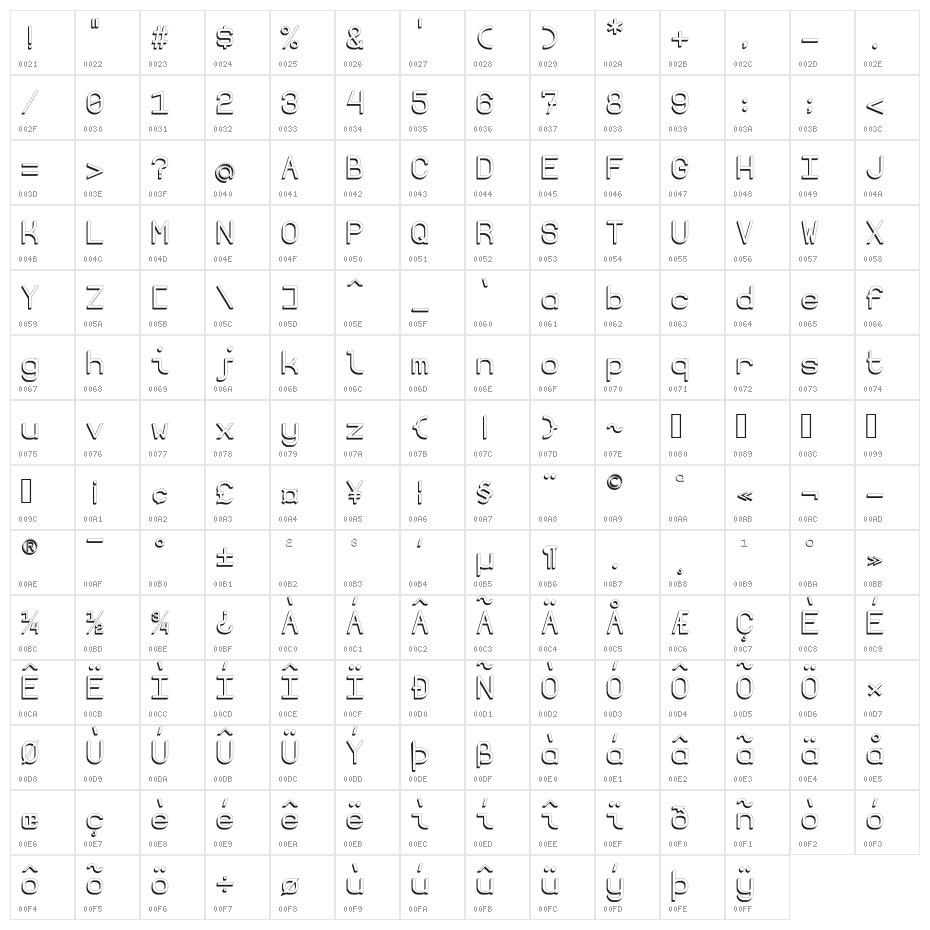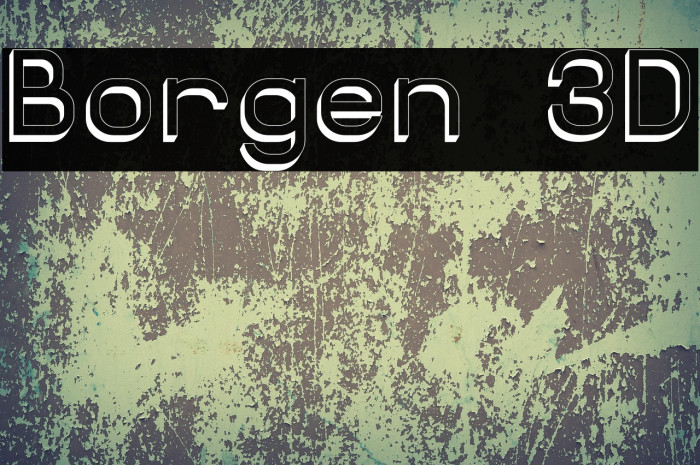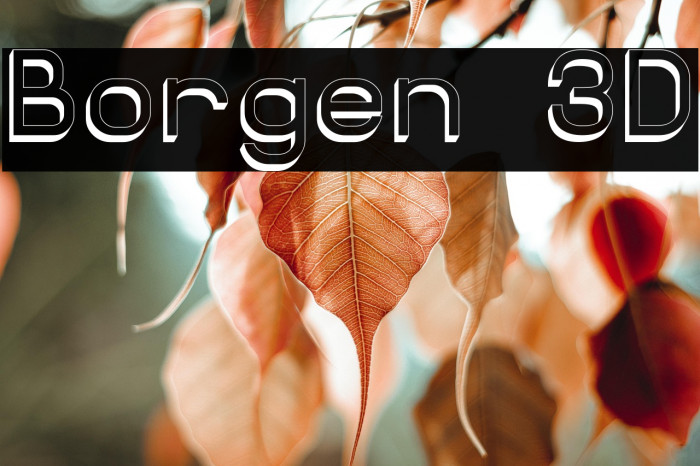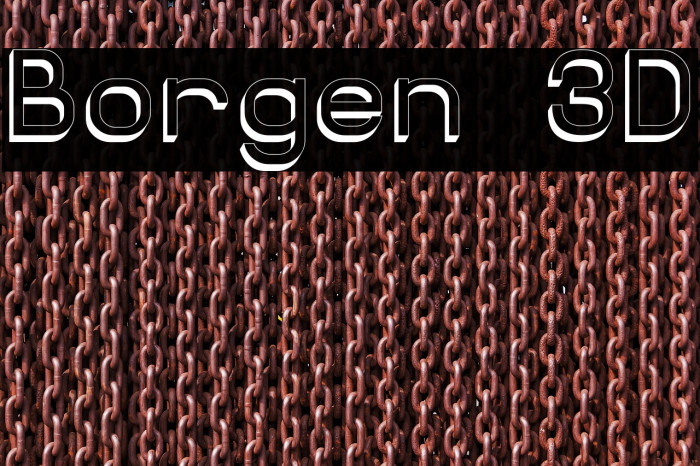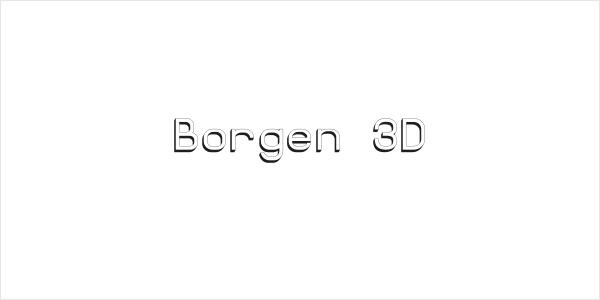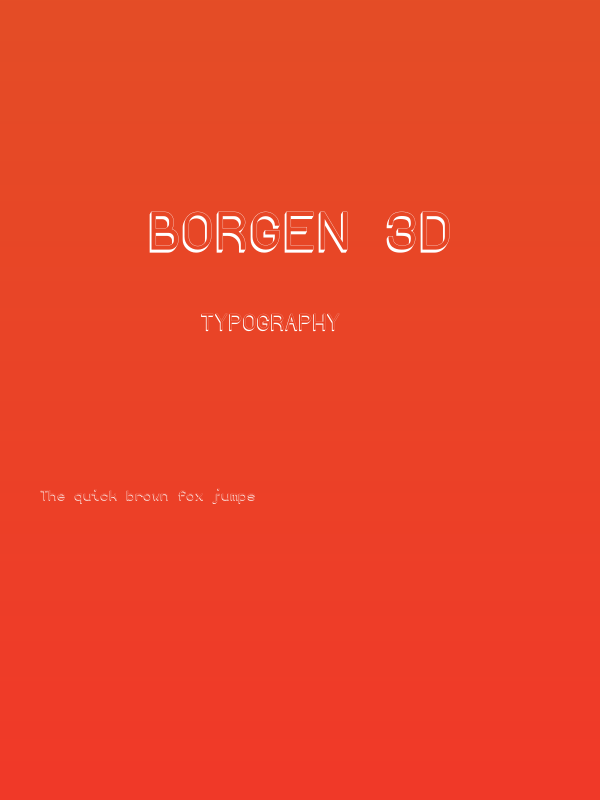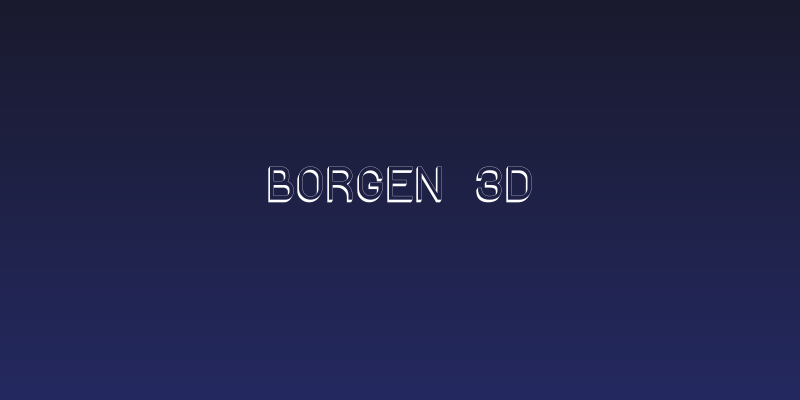
Borgen 3D Font
Borgen 3D Description
This font features a three-dimensional effect with a bold outline that gives each character a distinct, shadowed appearance. The uppercase and lowercase letters maintain a consistent geometric structure, with clean lines and a modern aesthetic. The numerals are equally bold, ensuring readability and a cohesive look across all characters. Special characters are included, enhancing the font's versatility. The overall design is striking and suitable for making a visual impact.